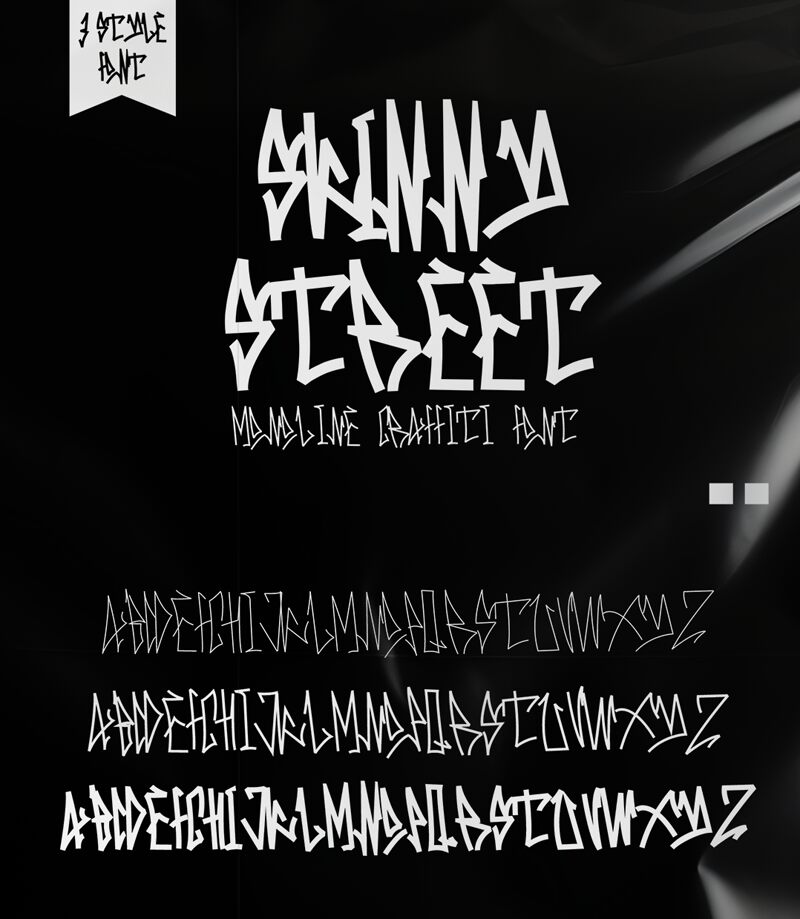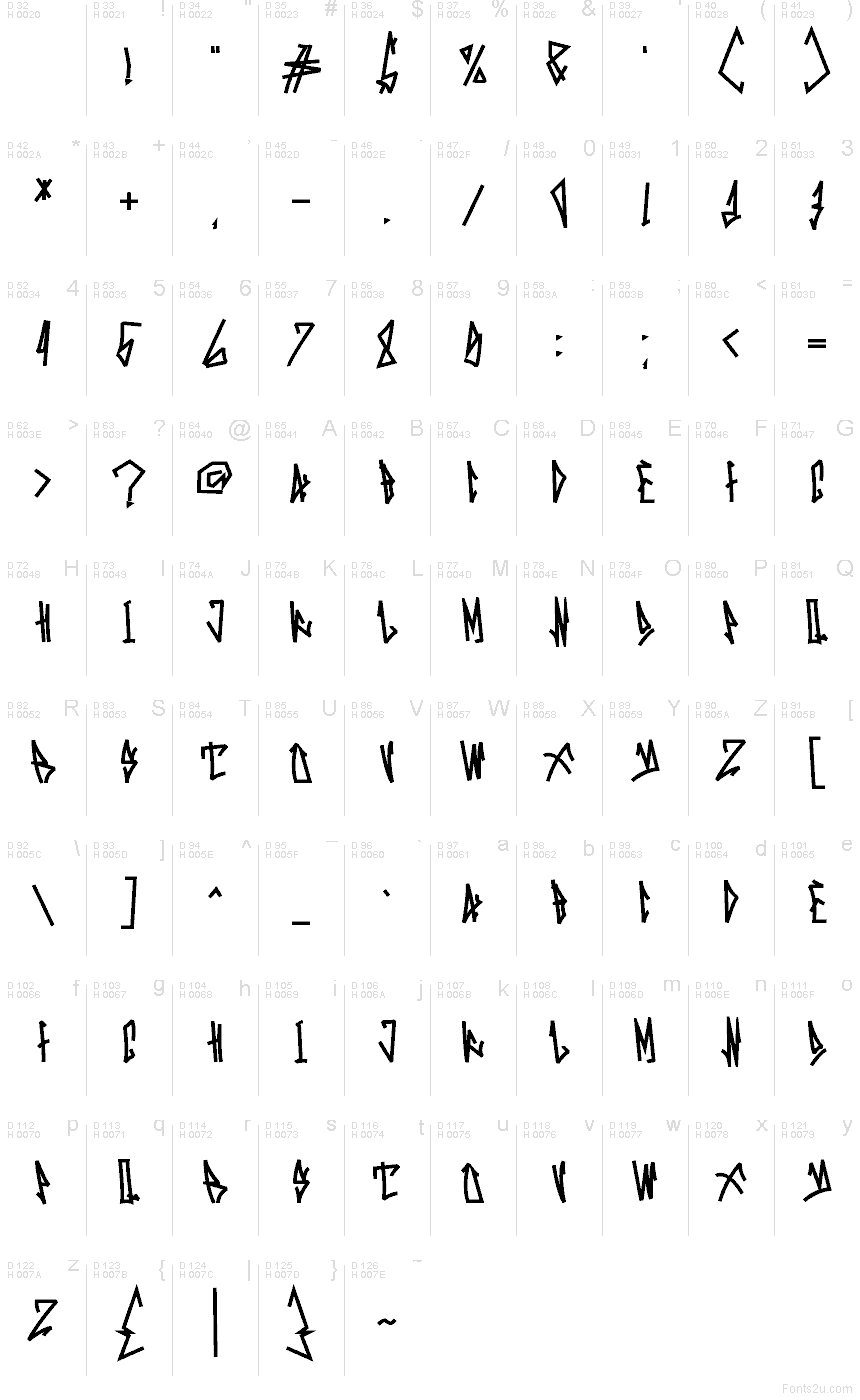
Skinny Street Bold
Skinny Street Bold font by Cikareotype Studio is a free graffiti typeface that channels raw alleyway energy into sharp, spiky letterforms. Its tall, narrow shapes feel like hurried tags scratched onto concrete, with jagged angles and sudden curves that keep every word buzzing with motion. The Skinny Street family’s Bold style hits hard in black, like thick marker ink dragged fast across a wall.
Using Skinny Street Bold, your titles grab attention on music covers, streetwear graphics, skate or BMX promo, urban event posters, YouTube thumbnails, and edgy brand logos. This free font shines when you keep it big and bold, letting the letter shapes overlap and crowd each other slightly. For balance, pair it with a clean geometric sans for small body text to keep your layouts readable while the graffiti lettering does the shouting.